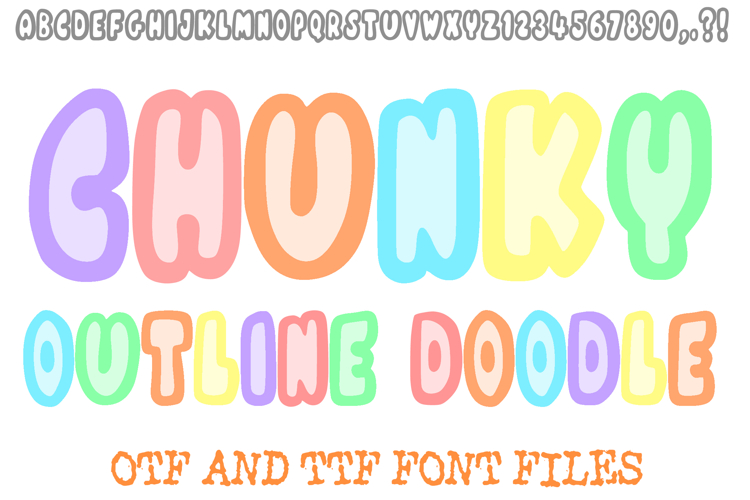
Chunky Outline Doodle Font Bold Bubble Kid Cartoon Lettering
Add a pop of personality to your creative work with the Chunky Outline Doodle Font! This high-impact display typeface features thick, "puffy" characters designed with a clean, bold black outline and a friendly, rounded aesthetic. Its hand-drawn, "doodled" feel makes it perfect for designers who want an approachable and energetic look that stands out.
Capturing a trendy retro-pop and Y2K vibe, this font is ideal for everything from playful social media headlines to kids' craft projects. The bold silhouettes ensure excellent legibility, making it a versatile choice for stickers, apparel, and digital branding.